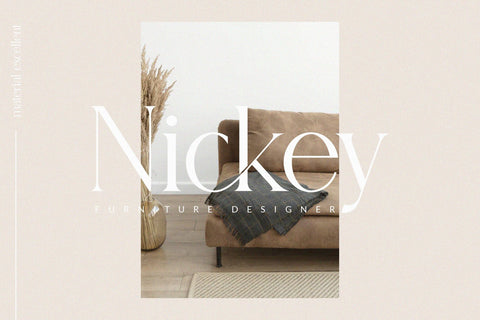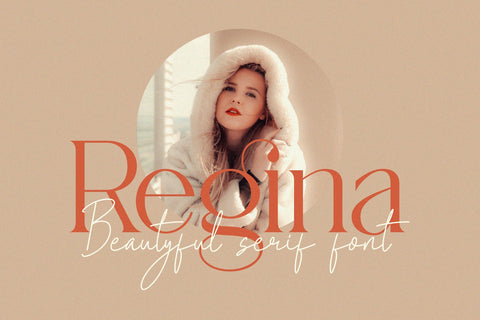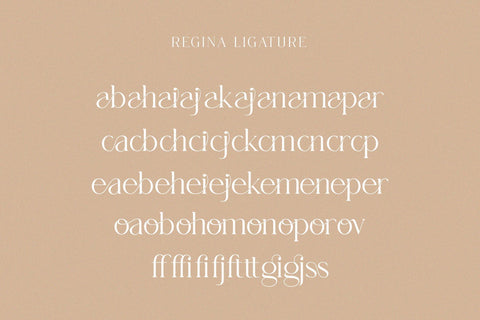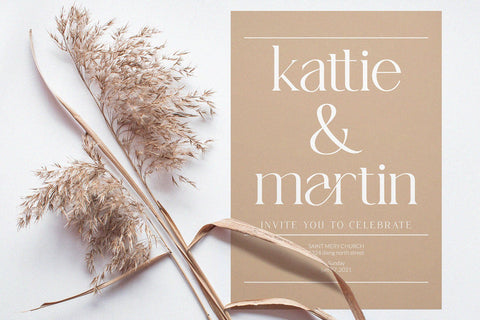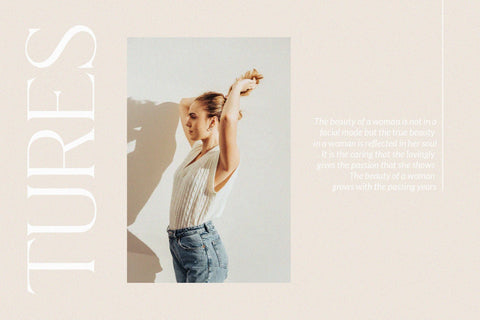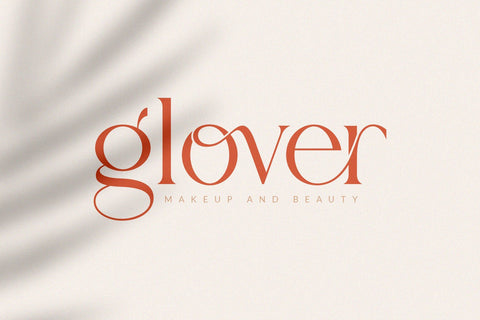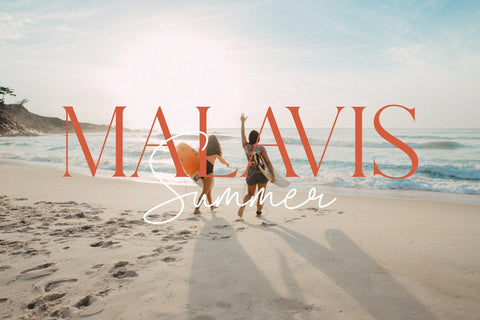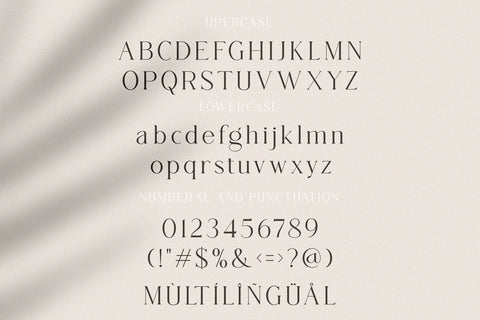
Regina_beautyful serif font
Introducing our new "Regina", Modern ligature typeface with Unique, Classy and Stylish. Is perfect for branding, logos, invitation, master heads, and more.
Regina Features :
Ligatures
Multilanguage
Alternates